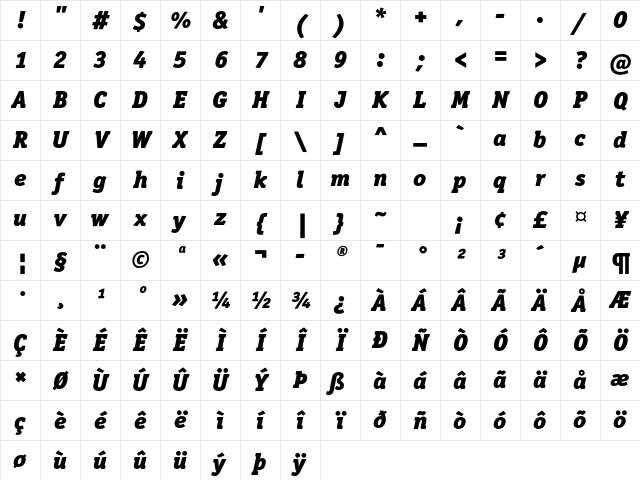
OfficinaSerITCStd BlackItalic
Style: BlackItalic
Designer: Erik Spiekermann and Ole Schaefer
Design Context for OfficinaSerITCStd
OfficinaSerITCStd is a composed and adaptable typeface that performs quietly and consistently across a wide range of design contexts. The slanted form adds forward momentum and visual energy.
Pro Tip: Use OfficinaSerITCStd for emphasis, pull quotes, and subheadings where its slanted energy can add rhythm to the layout.